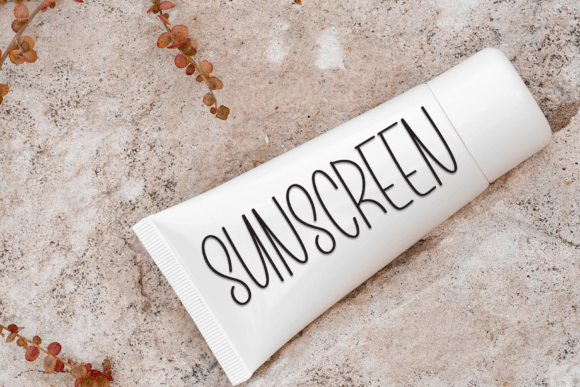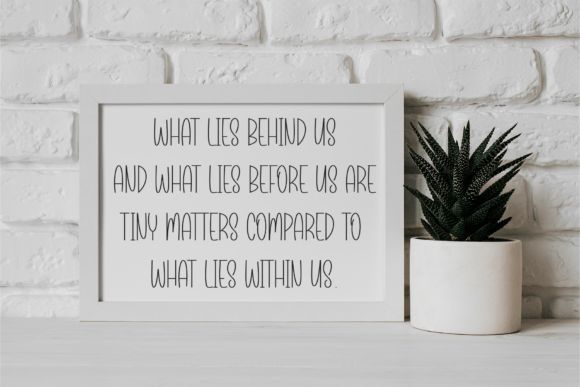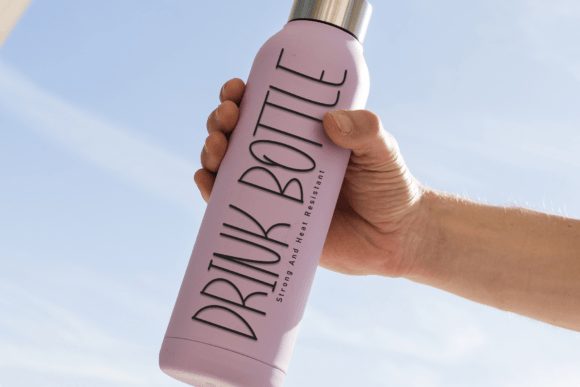
Beautiful Wildflower Font
Embodying charm and whimsy, the handwritten display font radiates a friendly sweetness that’s simply irresistible. Inject playful delight into your wedding invitations, cards, or unique designs and let your creativity shine through! With its cute and fun character, it naturally supports designs that call for an element of joy and a touch of fun. This is not just a font; it’s a dash of delight, a sprinkle of sweetness, and a handful of happiness all weaved into a harmonious handwritten texture.